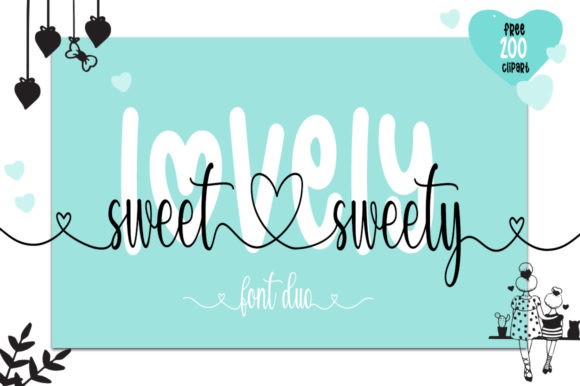
Prepare to fall head over heels for Lovely Sweet Sweety, an extraordinary font duo that weaves a captivating tapestry of romance and elegance. Its delicate script, adorned with graceful curves and playful flourishes, dances across the page like a whisper of love.
Indulge in the beauty of Lovely Sweet Sweety and elevate your creations to breathtaking heights. Its enchanting letters will cast a spell on your designs, transforming ordinary words into a symphony of heartfelt emotions. Whether you're crafting ethereal wedding invitations, enchanting logos, or heartwarming social media posts, this font will ignite your imagination and leave an unforgettable impression.
Let Lovely Sweet Sweety's unparalleled versatility guide you through a myriad of design adventures. Its seamless adaptability will effortlessly complement any aesthetic, from classic and timeless to modern and alluring. With each stroke of your pen or click of your mouse, you'll experience the joy of witnessing your designs blossom into works of art that evoke pure bliss.
As you immerse yourself in the world of Lovely Sweet Sweety, you'll discover a treasure trove of creative possibilities. Its captivating characters will ignite your passion and inspire you to create designs that resonate with authenticity and allure. Let this enchanting font duo be the muse that elevates your designs to extraordinary new horizons.